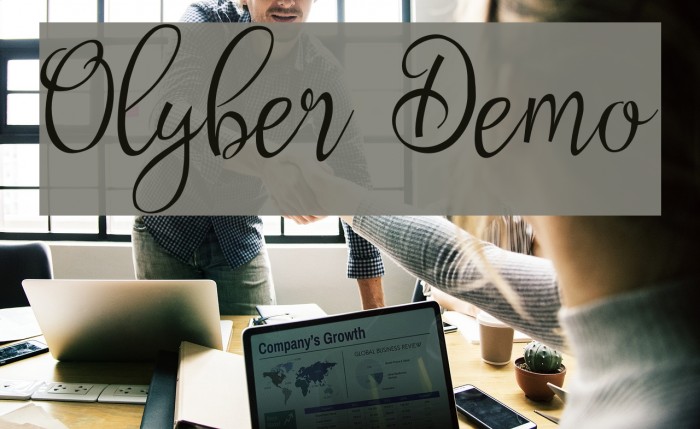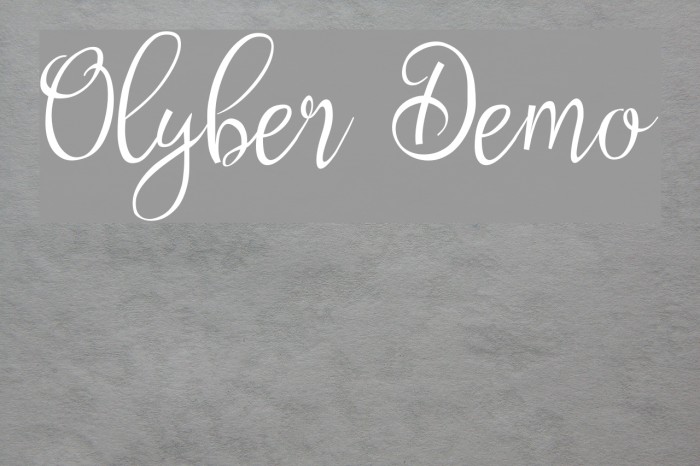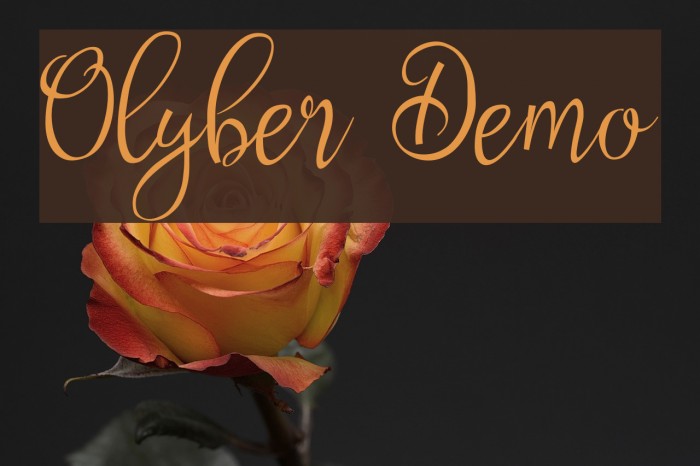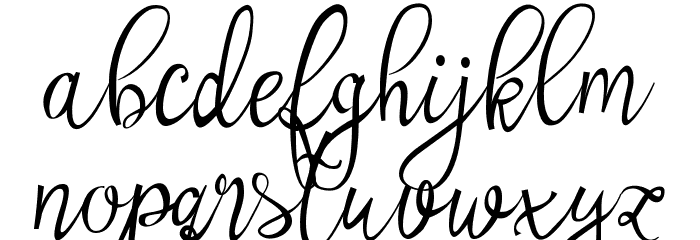
Olyber Demo Font
Olyber Demo Description
This elegant script font features a flowing, cursive style with smooth, interconnected letters. The uppercase characters are grand and sweeping, while the lowercase letters maintain a consistent rhythm with delicate loops and curves. The font exudes a sense of sophistication and grace, making it ideal for formal invitations, branding, and decorative projects. Its artistic flair is evident in the intricate details of each character, providing a hand-drawn appearance that adds a personal touch to any design.
| Use Case | Invitations, Branding, Decorative |
| Proposed Projects | Ideal for wedding invitations, branding, greeting cards, and decorative projects. |